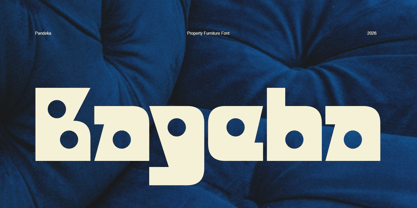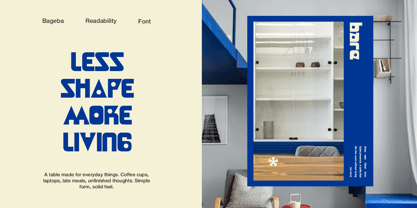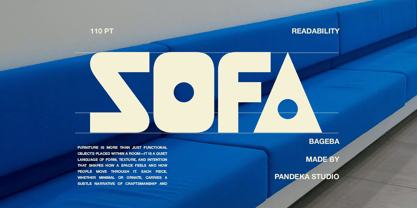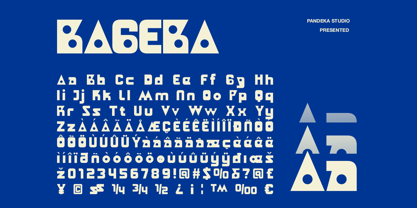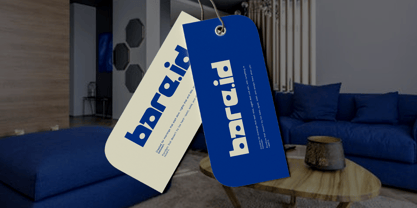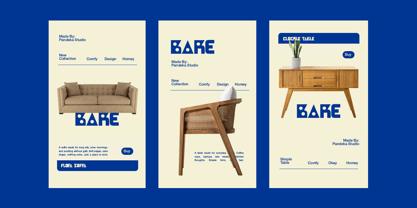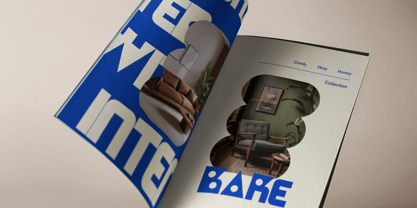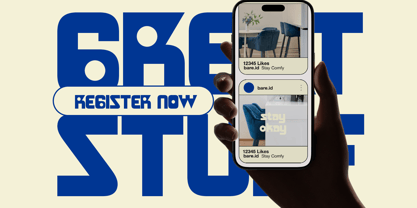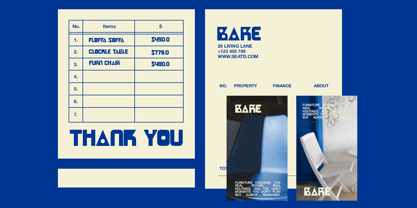
Bageba
by Pandeka Studio
The Bageba Font Family was designed by Sagara Nararya and published by Pandeka Studio. Bageba contains 1 styles. More about this family
Bageba is a bold and distinctive display font crafted for modern property and furniture branding. Built with strong geometric shapes, sharp angles, and signature circular cut details, it creates a confident and structured visual identity. The design feels solid yet stylish, making it highly suitable for projects that need a modern, professional, and memorable look.
Inspired by architectural forms and interior aesthetics, Bageba offers excellent readability while maintaining a unique character. This font comes with 1 style: Regular, and includes uppercase, lowercase, numbers, punctuation, and multilingual support. Perfect for real estate branding, furniture catalogs, interior design projects, logos, packaging, posters, and editorial layouts.